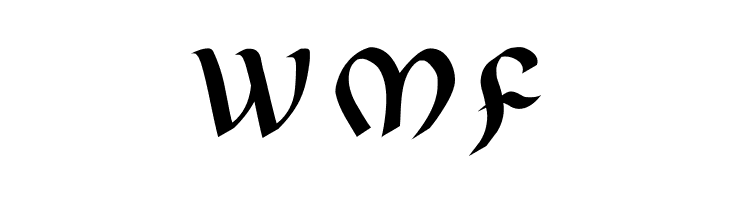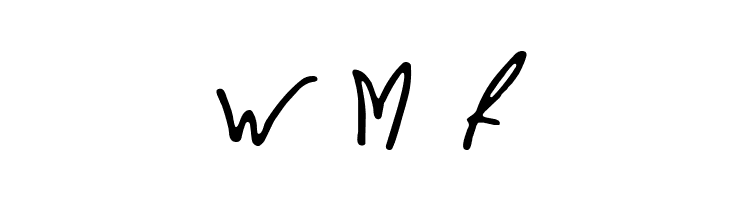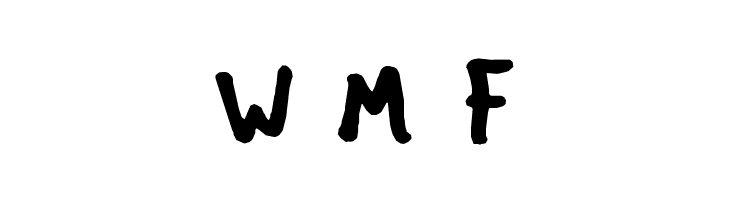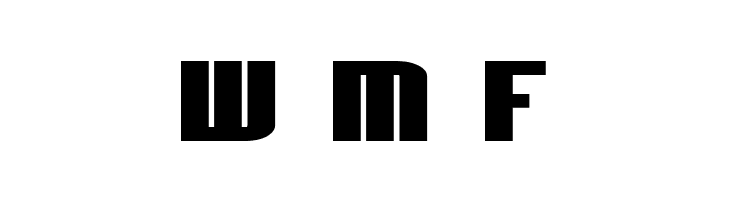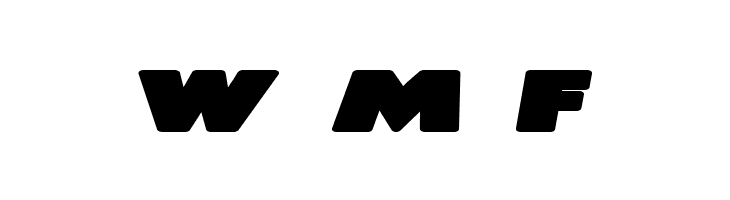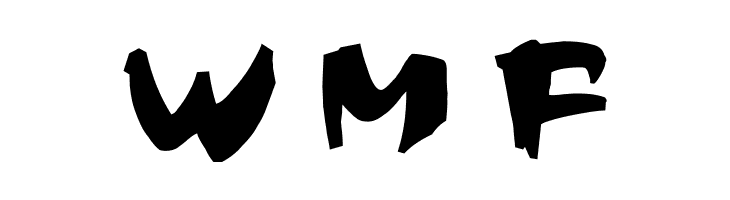
A playful, handwritten font with fluid, dynamic strokes and a casual style.
A bold, geometric font with thick, uniform strokes and minimal contrast.
A medieval-style font with ornate, decorative letterforms and bold strokes.
A bold, dynamic brush script font with expressive strokes and lively movement.
A lively handwritten font with expressive, fluid strokes and playful elegance.